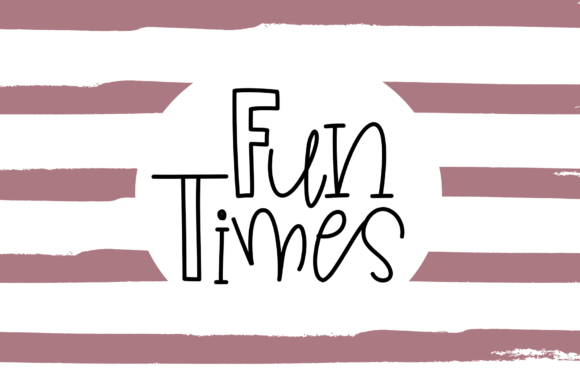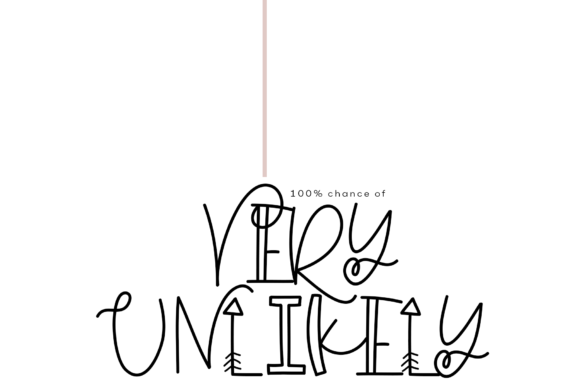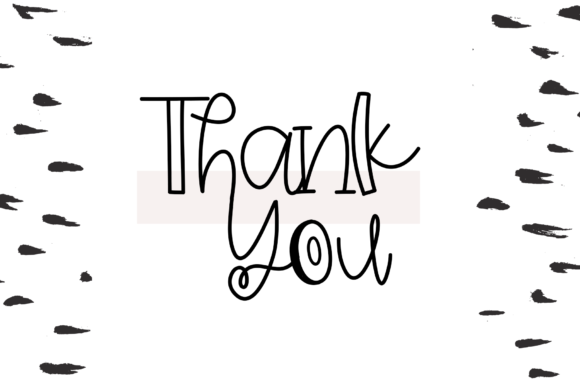
Introduction to Likely Not Font Font
Fonts play a crucial role in design, and the Likely Not Font font is a typeface that brings both character and versatility to any project. Whether you’re working on a branding project, a website, or a print design, the Likely Not Font font offers a unique style that can elevate your work.
Likely Not is a fun and quirky font full of personality.
It will inspire you with its mismatched letters .
Key Features of Likely Not Font Font
Why Choose Likely Not Font Font?
The Likely Not Font font is more than just a typeface – it’s a design tool that helps you communicate your message with style and clarity. Its unique character set and versatile design make it suitable for a wide range of applications, from elegant invitations to bold headlines.
With its carefully crafted letterforms and balanced proportions, the Likely Not Font font ensures readability and visual appeal across all mediums.
What makes Likely Not Font font special?
The Likely Not Font font stands out with its unique design, exceptional readability, and versatility across various design applications.